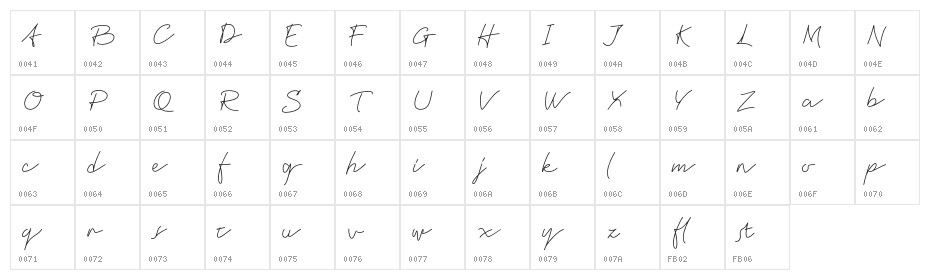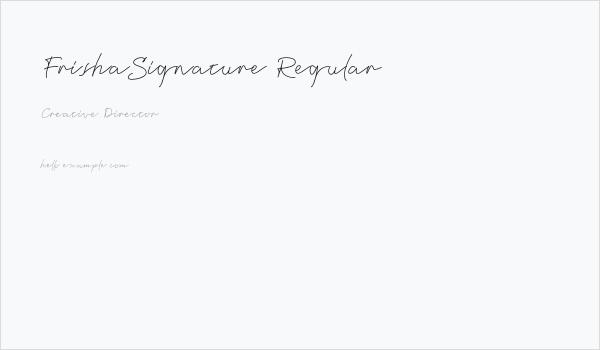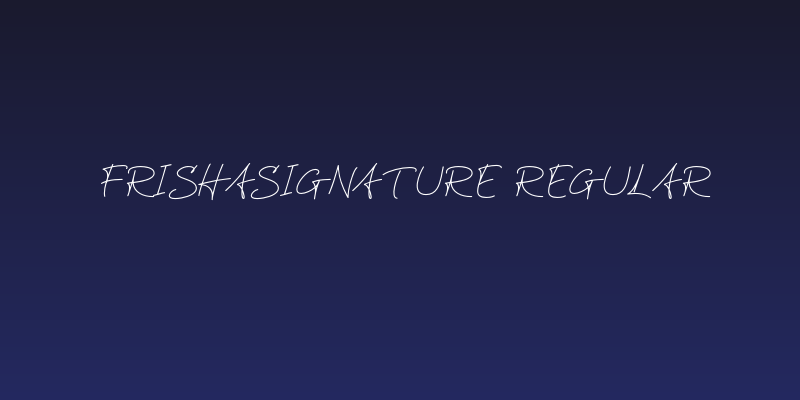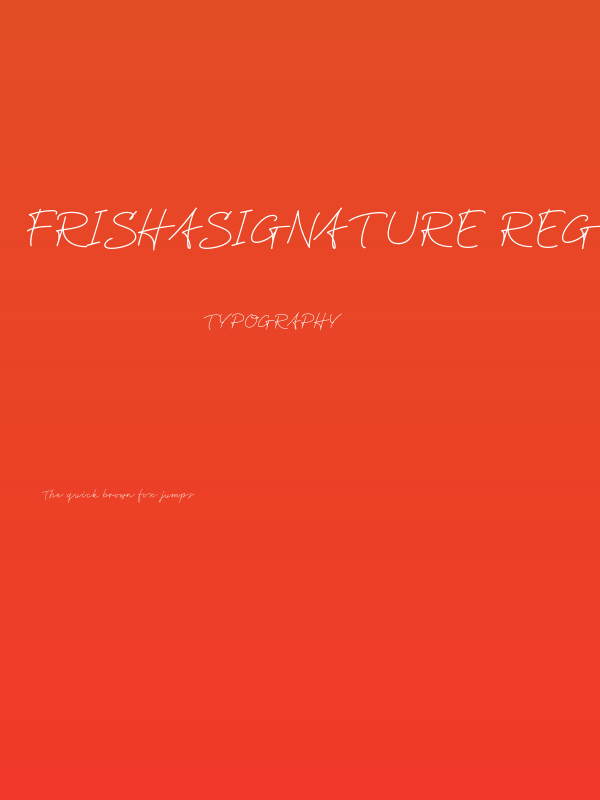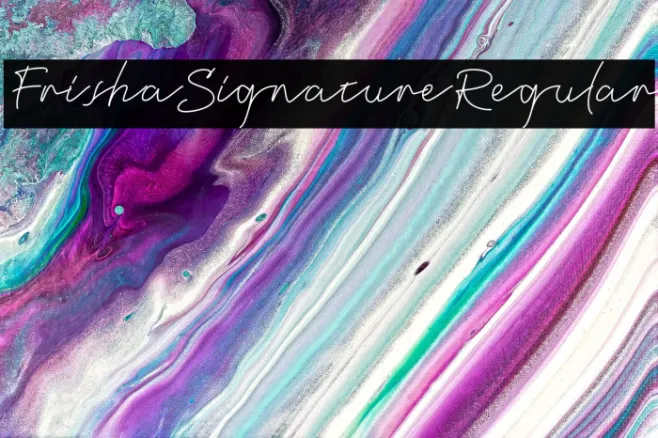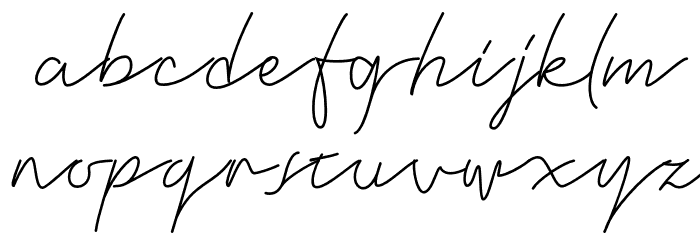
FrishaSignature-Regular Font
FrishaSignature-Regular Description
This font exudes a modern and elegant handwritten style, characterized by its fluid and continuous strokes that mimic the natural flow of cursive handwriting. The letters are connected seamlessly, creating a sense of movement and grace. The uppercase letters are slightly more structured, while the lowercase letters maintain a casual and relaxed appearance. This font is perfect for adding a personal touch to any design, making it ideal for invitations, greeting cards, and personal branding. Its delicate lines and smooth curves give it a sophisticated yet approachable feel.
| Font Family | Frisha Signature |
| Use Case | Logos, Invitations, Personal branding |
| Proposed Projects | Ideal for wedding invitations, personal branding, greeting cards, and elegant stationery. |